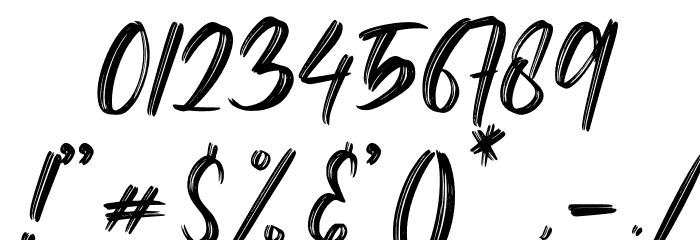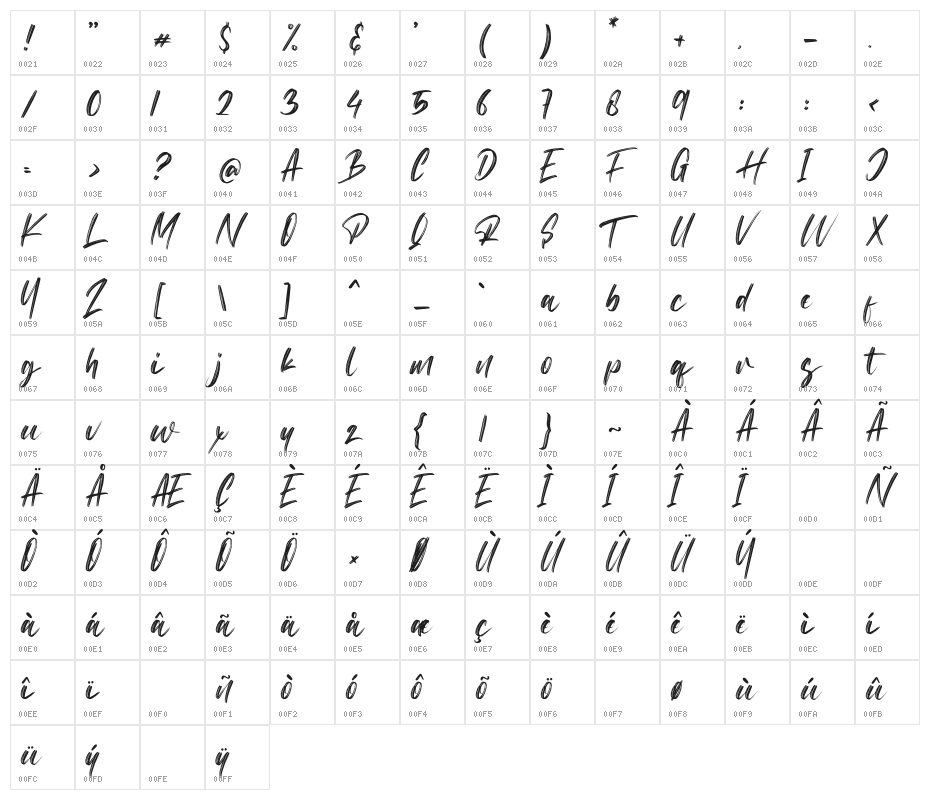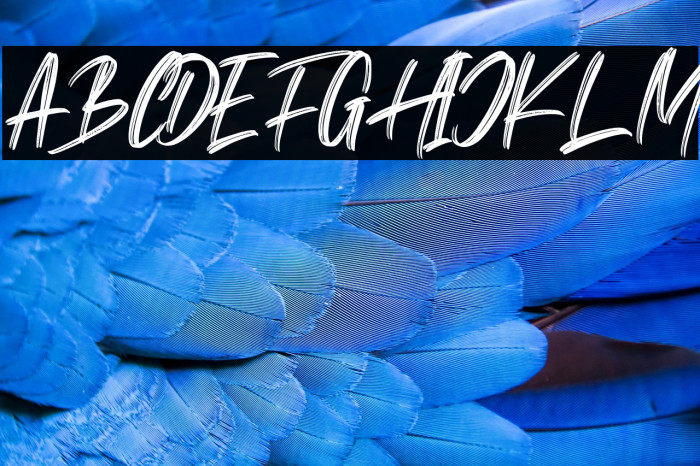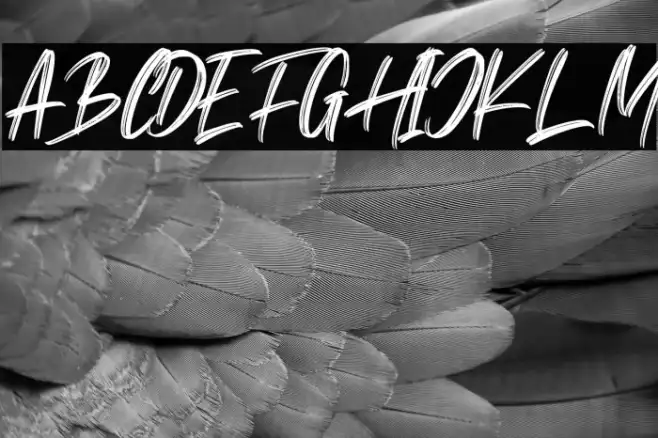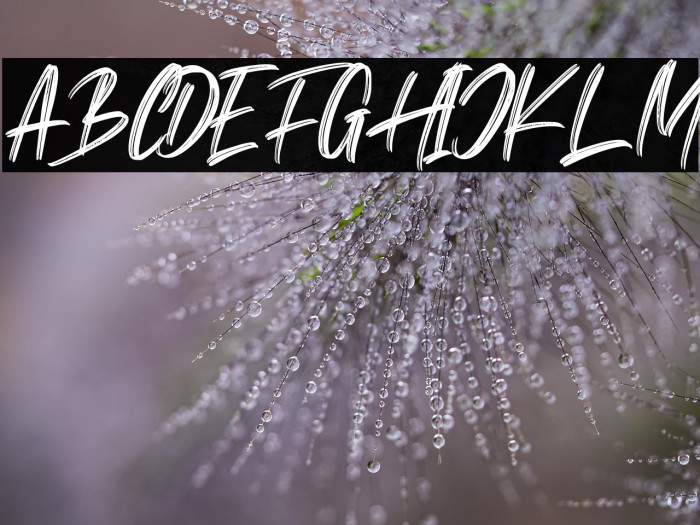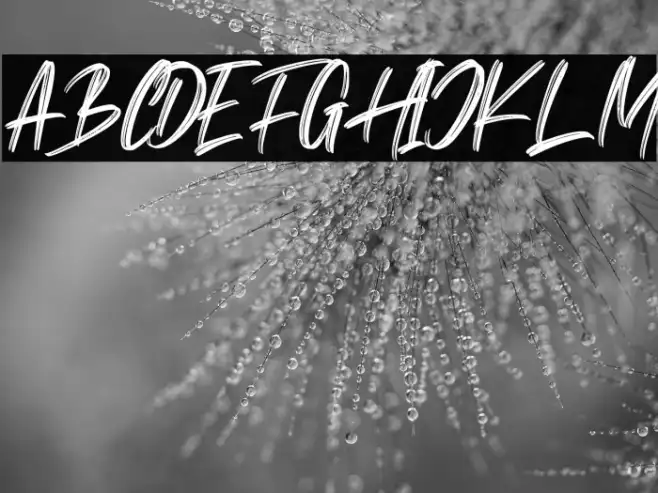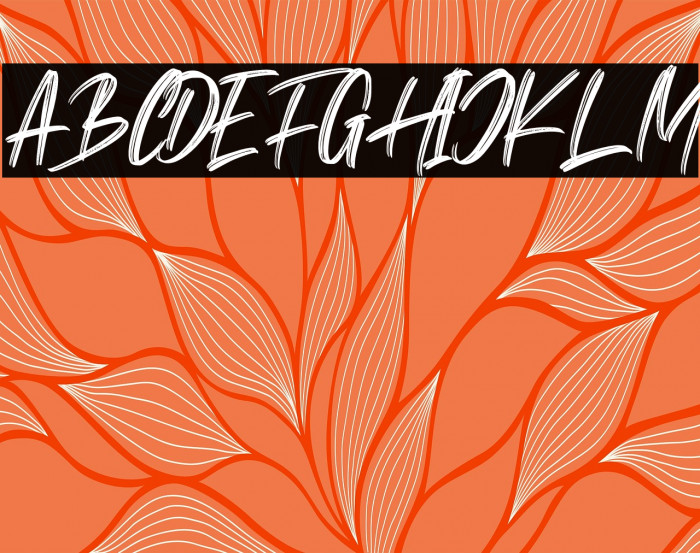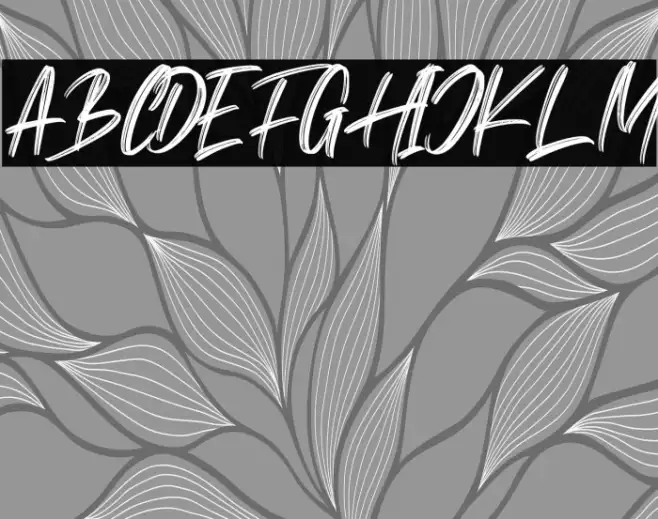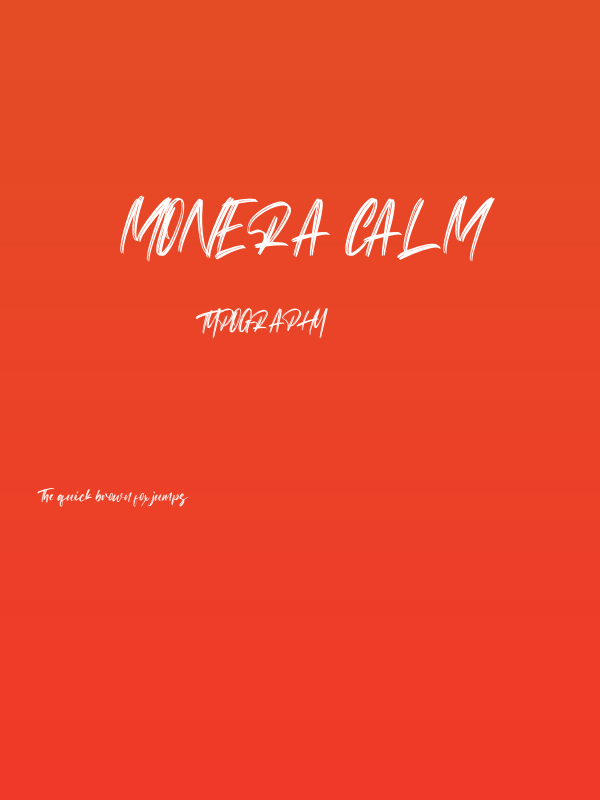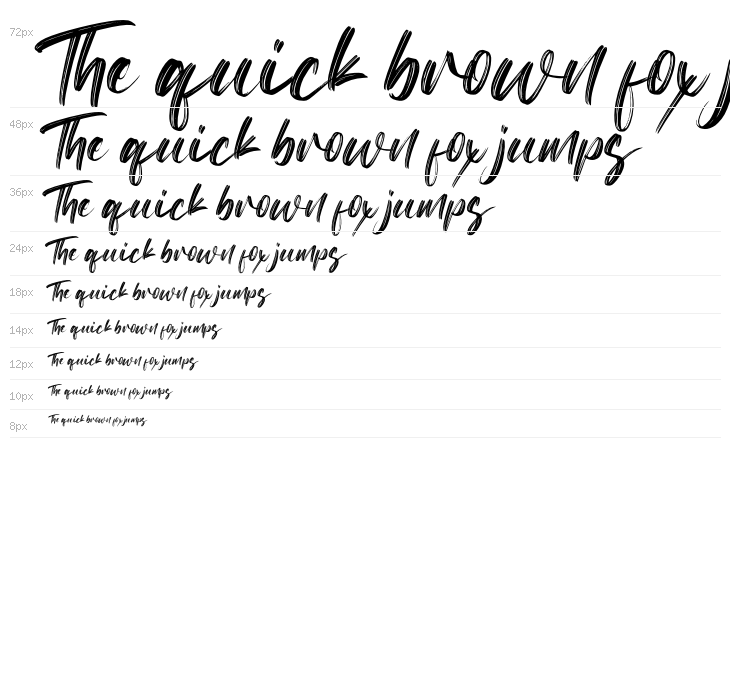
Monera Calm Font
Monera Calm Description
This font features a dynamic and energetic handwritten style, characterized by its bold and expressive strokes. The letters are crafted with a fluid motion, giving a sense of movement and personality. The uppercase and lowercase letters maintain a consistent style, with a slight slant that adds to the casual yet sophisticated appearance. Numbers and special characters are equally expressive, making them suitable for a variety of creative applications. The overall look is modern and artistic, perfect for projects that require a personal touch.